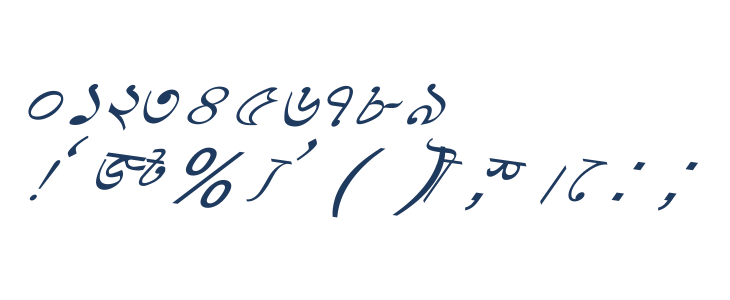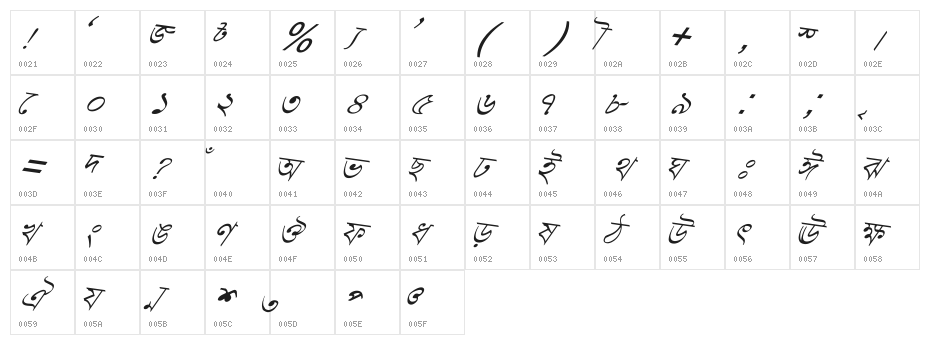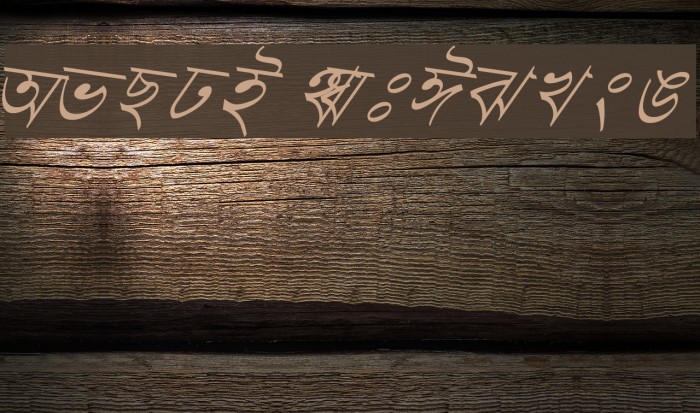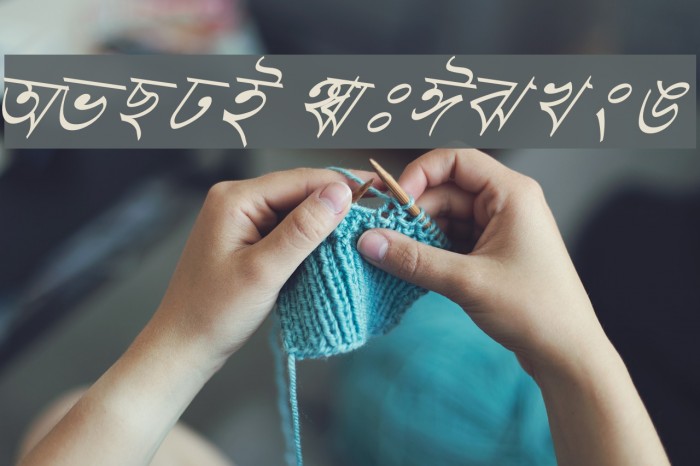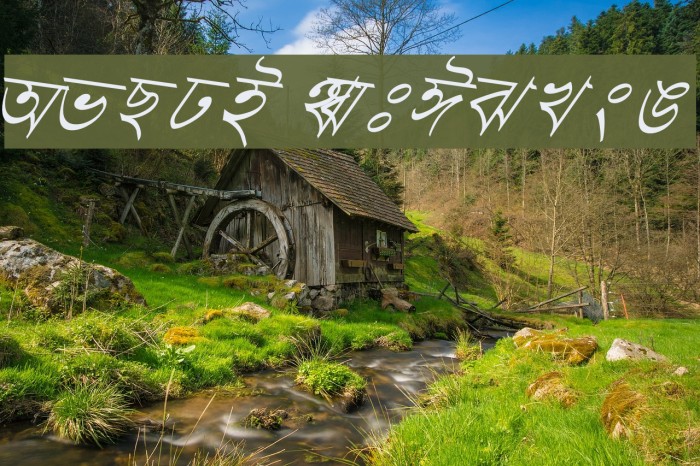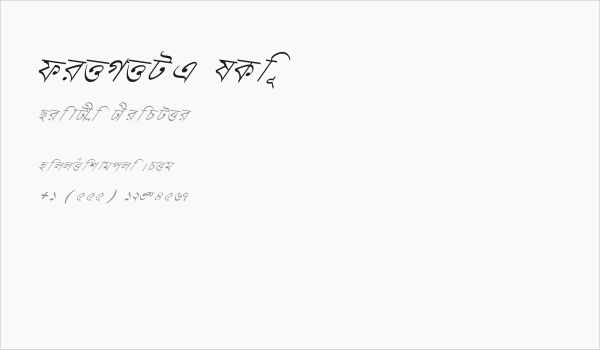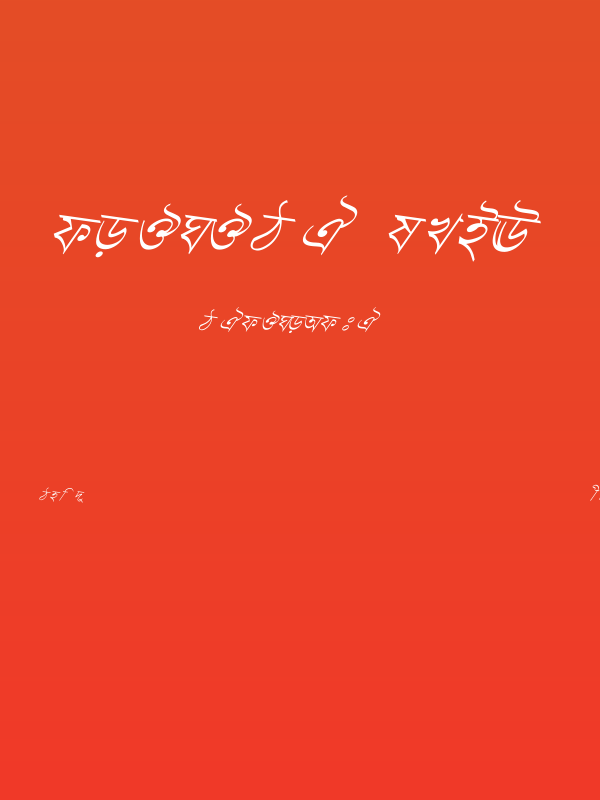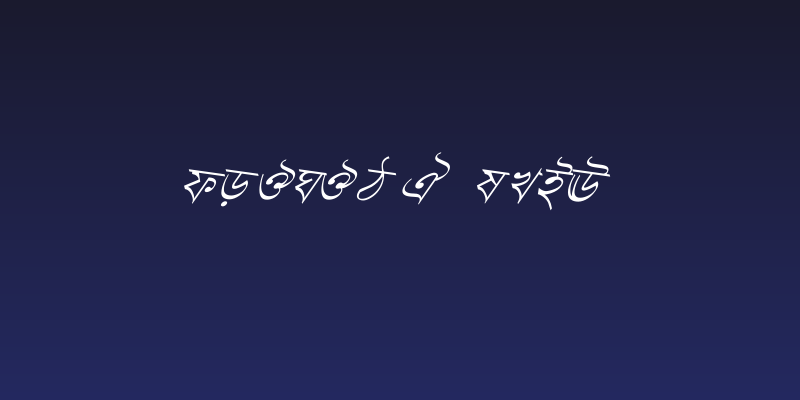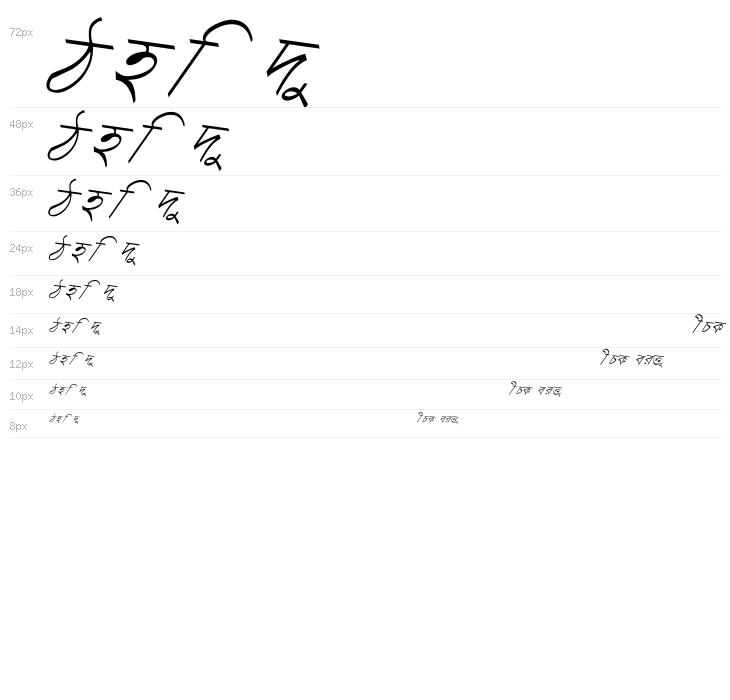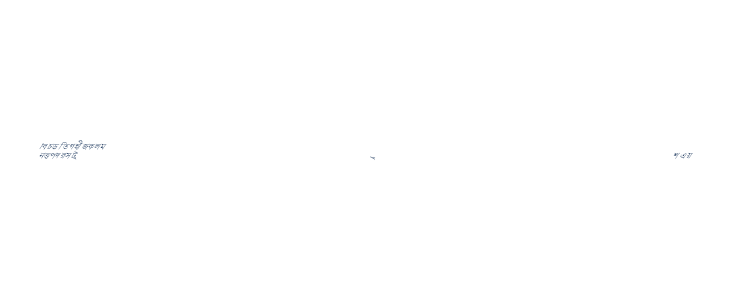
Progoty Skew Font
Progoty Skew Description
This font exhibits a dynamic and flowing style, characterized by its elegant curves and slanted orientation, which gives it a sense of motion and fluidity. The characters are intricately designed, with a calligraphic influence that adds a touch of sophistication. The strokes vary in thickness, providing a medium contrast that enhances readability while maintaining an artistic flair. This font's unique style makes it suitable for creative and expressive projects, where a touch of elegance and movement is desired.